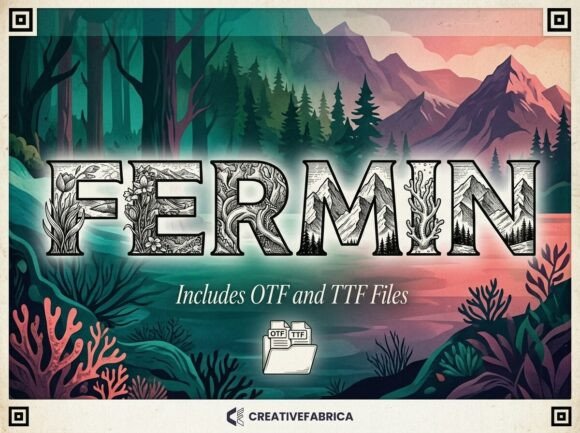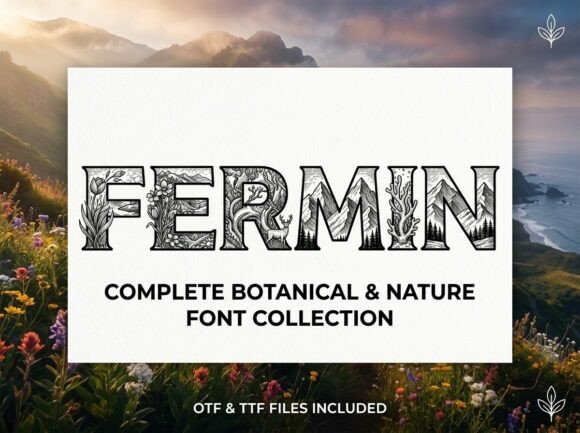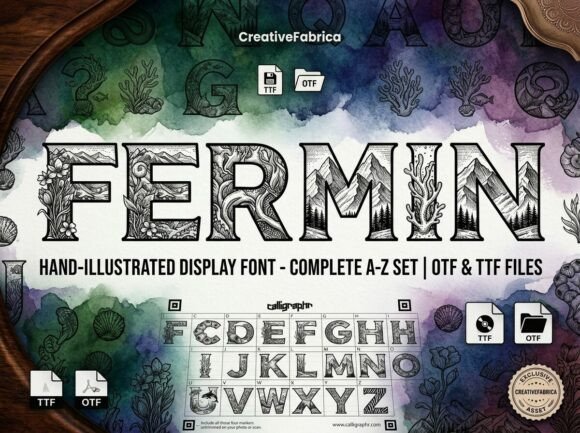
Introducing Fermin Font: A Stunning Decorative Display Font
Are you tired of using the same old fonts for your creative projects? Look no further than Fermin Font, a unique and artistic display font that’s sure to turn heads. Designed to be the center of attention, Fermin Font is perfect for creators who want to add a touch of elegance and sophistication to their work.
What Makes Fermin Font Special?
Fermin Font is a decorative display font that boasts a strong visual personality and unique artistic elements. Its distinctive style makes it ideal for bold headlines, artistic logos, and creative packaging. Whether you’re a designer, craftsperson, or DIY enthusiast, Fermin Font is sure to help you stand out from the crowd.
Key Features of Fermin Font
- Unique Artistic Elements: Fermin Font features intricate and artistic elements that give it a one-of-a-kind look.
- Strong Visual Personality: This font has a bold and confident personality that’s sure to make a statement.
- Versatile: Fermin Font can be used for a variety of creative projects, from bold headlines to artistic logos and packaging.
- Professional and Polished Finish: Despite its bold and artistic style, Fermin Font maintains a professional and polished finish.
Before purchasing Fermin Font, please note that it is an ALL-CAPS (Uppercase Only) display typeface. This means it does not include lowercase letters. It is specifically designed for high-impact headlines, logos, and decorative initials where every letter is a work of art.
Use Cases for Fermin Font
Fermin Font is perfect for a variety of creative projects, including:
- Bold Headlines: Use Fermin Font to create eye-catching headlines that grab attention.
- Artistic Logos: Create stunning logos that showcase your brand’s personality and style.
- Creative Packaging: Add a touch of elegance and sophistication to your product packaging with Fermin Font.
- Social Media Graphics: Use Fermin Font to create engaging social media graphics that stand out from the crowd.
Tips for Using Fermin Font
Here are some tips for getting the most out of Fermin Font:
- Use it sparingly: Fermin Font is a bold and attention-grabbing font, so use it sparingly to avoid overwhelming your design.
- Pair it with a simple font: Pair Fermin Font with a simple font to create visual contrast and make your design more readable.
- Experiment with colors: Fermin Font looks great in a variety of colors, so don’t be afraid to experiment and find the perfect color scheme for your design.